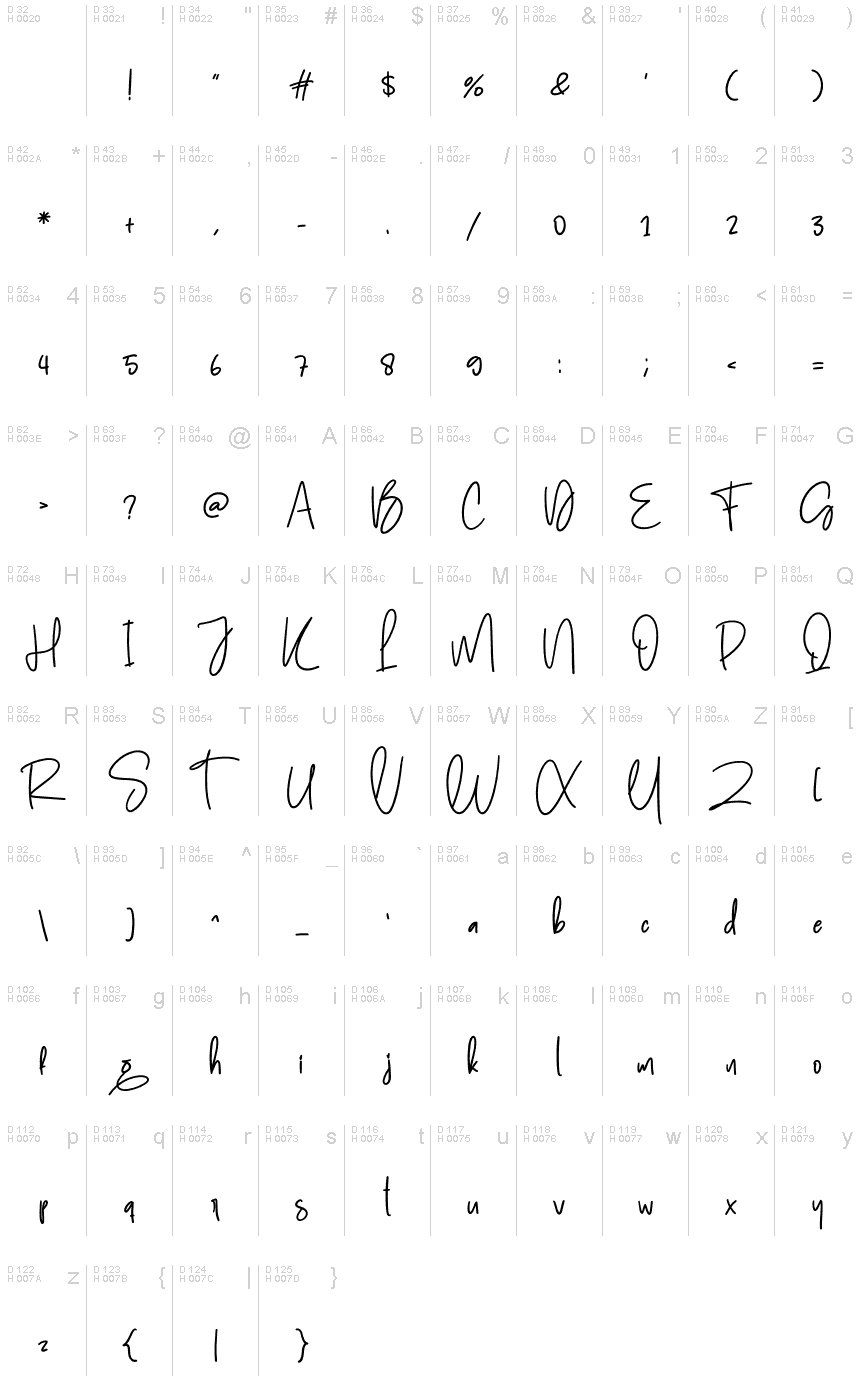
Baby Hungry
Baby Hungry, designed by Scratchones, is a whimsical handwritten font with an extra-light weight. Its delicate brush strokes and natural flow give it an authentic signature style.
This font is perfect for adding a playful touch to children's book covers, invitations, and nursery decor projects. Its airy and charming design will also make it suitable for wedding stationery, feminine branding materials, and personalized gifts.
With Baby Hungry's unique characteristics, your projects will effortlessly convey a sense of innocence and creativity.
The latest style letters are perfect for wall displays, wedding invitations, social media post logos, advertisements, product packaging, product designs, labels, photography, watermarks, invitations, stationery, and any project that requires taste handwriting.
This font is perfect for adding a playful touch to children's book covers, invitations, and nursery decor projects. Its airy and charming design will also make it suitable for wedding stationery, feminine branding materials, and personalized gifts.
With Baby Hungry's unique characteristics, your projects will effortlessly convey a sense of innocence and creativity.
The latest style letters are perfect for wall displays, wedding invitations, social media post logos, advertisements, product packaging, product designs, labels, photography, watermarks, invitations, stationery, and any project that requires taste handwriting.